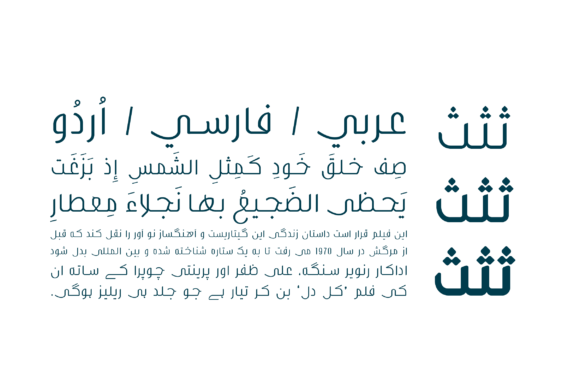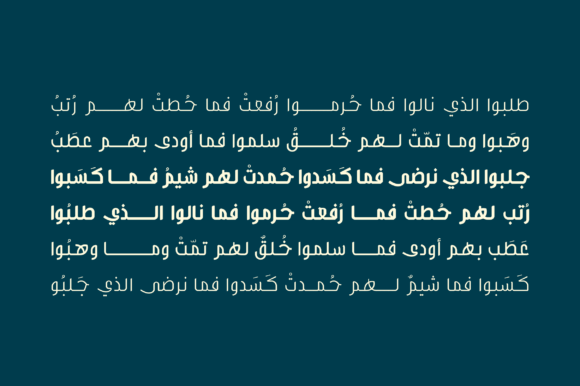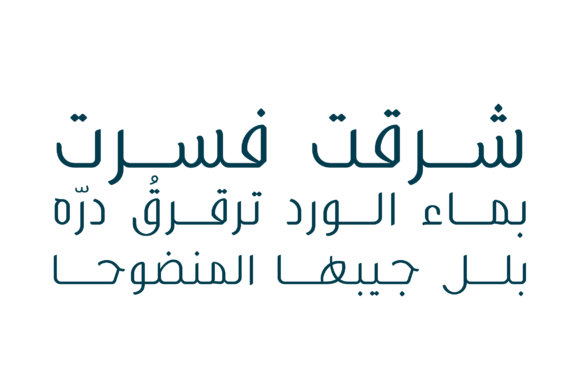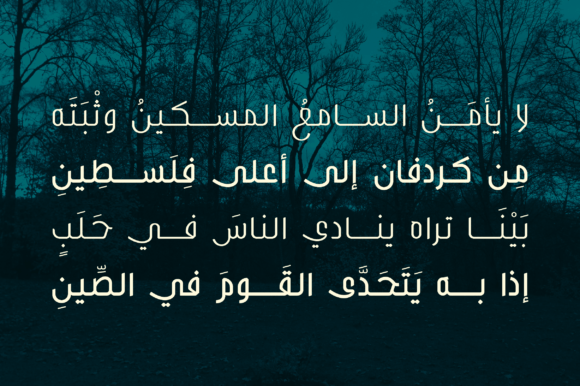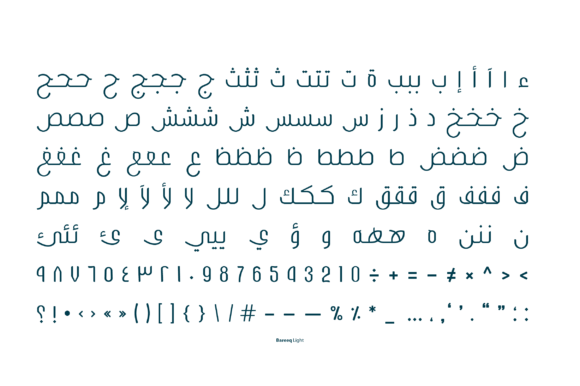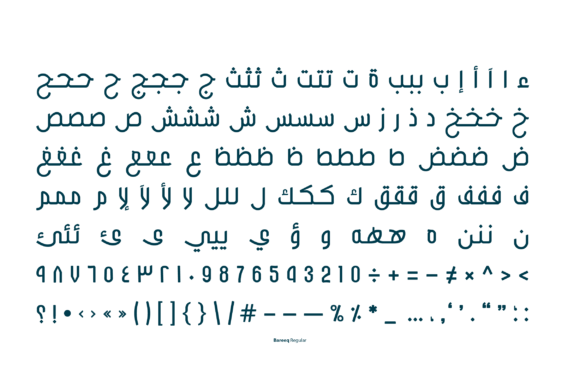
Introduction to Bareeq Font
Imagine you’re working on a creative project, pouring your heart and soul into every detail, and then you stumble upon the perfect font to bring it all together. That’s exactly what happened when designers discovered the Bareeq Font, a stunning Arabic typeface that effortlessly fuses traditional script with modern design.
With its high-quality design and versatility, the Bareeq Font has quickly become a go-to resource for designers seeking a unique and authentic look for their projects. Whether you’re working on a web design, print material, or even a logo, this font is sure to add a touch of elegance and sophistication. And the best part? It’s available for free download, making it an accessible design resource for creatives of all levels.
As a valuable addition to any designer’s toolkit, the Bareeq Font offers a transparent background, allowing for seamless integration into various design applications. Its versatility and high-quality design make it an essential resource for any creative project, from branding and marketing materials to digital art and publications.
Key Features of Bareeq Font
- Designed with a unique, elegant style that sets it apart from other fonts.
- Supports a wide range of languages, making it a versatile design resource.
Honest Review: Bareeq Font
I recently had the chance to work with the Bareeq Font, and I must say it’s been a game-changer for my creative projects. The first thing that caught my attention was its high quality design, perfect for creating eye-catching headings and titles.
One of the standout features of the Bareeq Font is its versatility. It comes in a variety of styles, from bold and playful to elegant and sophisticated, making it an excellent choice for any design project. The font is also completely free to download, which is a huge plus for designers on a budget.
- ✨ Versatile font styles to suit any design need
However, I did encounter some limitations with the Bareeq Font:
- ⚠️ Limited customization options
- ⚠️ Some styles may not be suitable for small text sizes
Overall, I’m thoroughly impressed with the Bareeq Font. It’s a valuable design resource that’s perfect for designers looking to add some flair to their creative projects. While it may have some limitations, the benefits far outweigh the drawbacks.
Bareeq Font
The Bareeq Font is suitable for a variety of creative projects, including wedding invitations, business cards, and brochures. Its high-quality design and transparent background make it a great design resource for designers and non-designers alike.